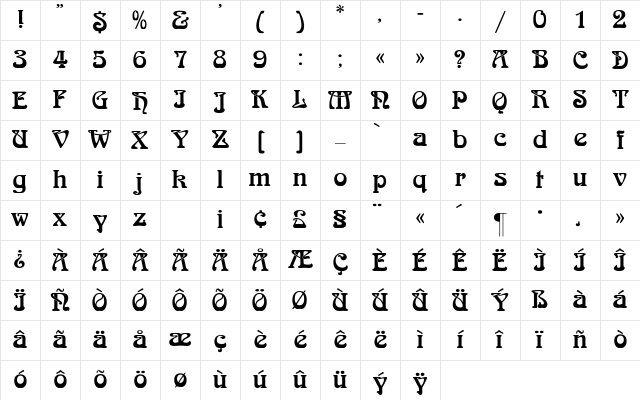
Arnold Regular
Design Context for Arnold
Arnold is a composed and adaptable typeface that performs quietly and consistently across a wide range of design contexts.
Pro Tip: Use Arnold in both headline and body roles to test its range before committing to a single application.